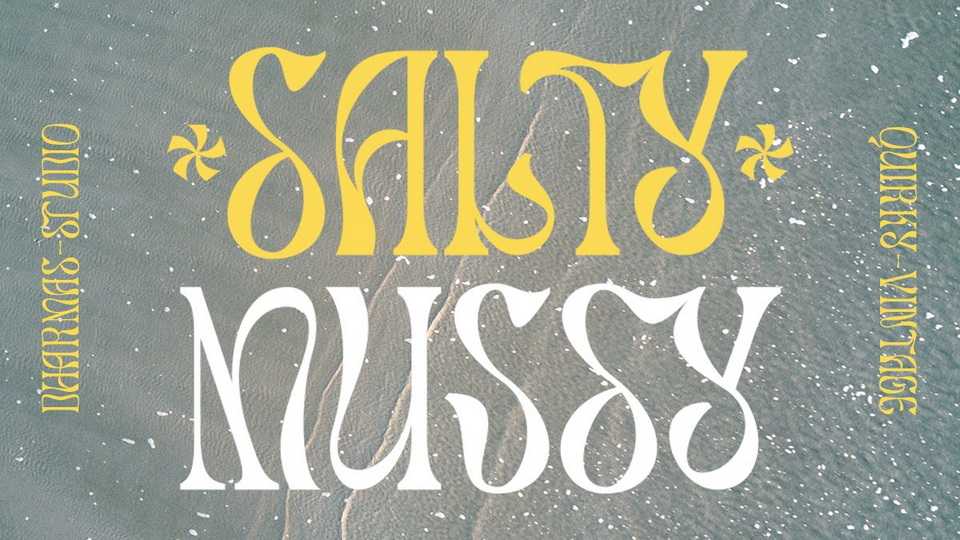
Download Salty Mussy font, a display typeface that has quirky and twisted style. Salty Mussy font brings back the 70s vibes with its modern but still funky rhythm.